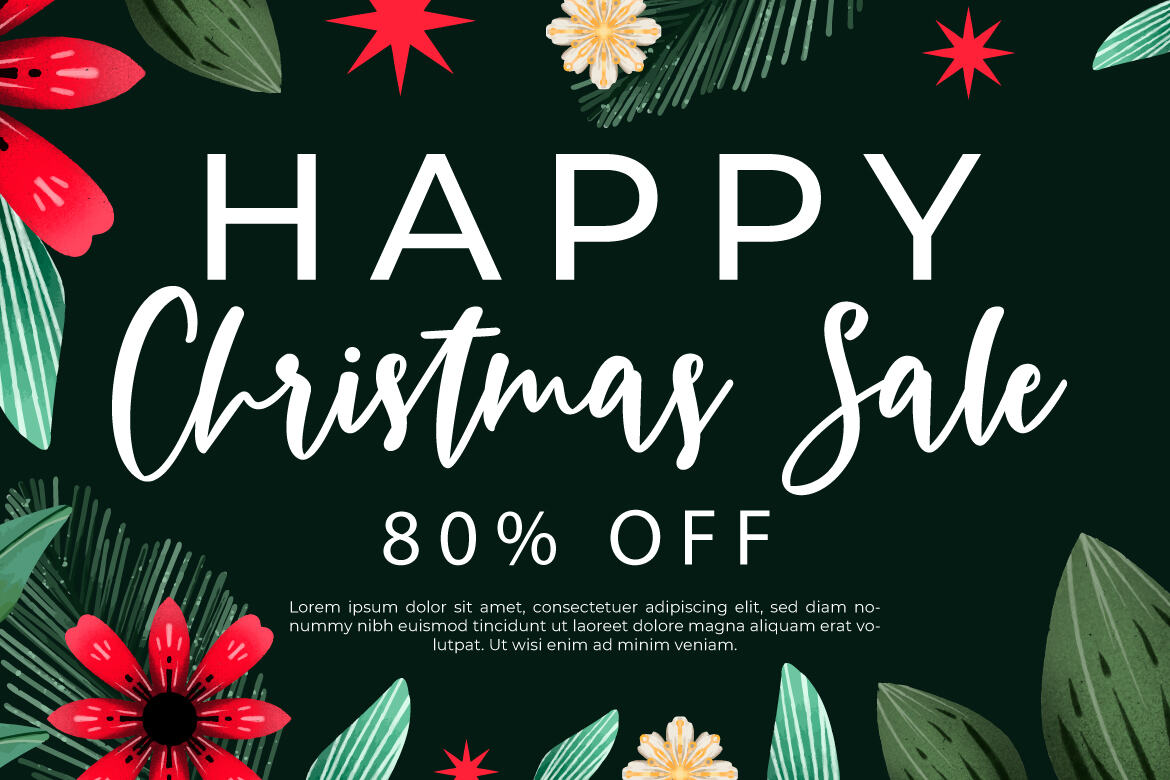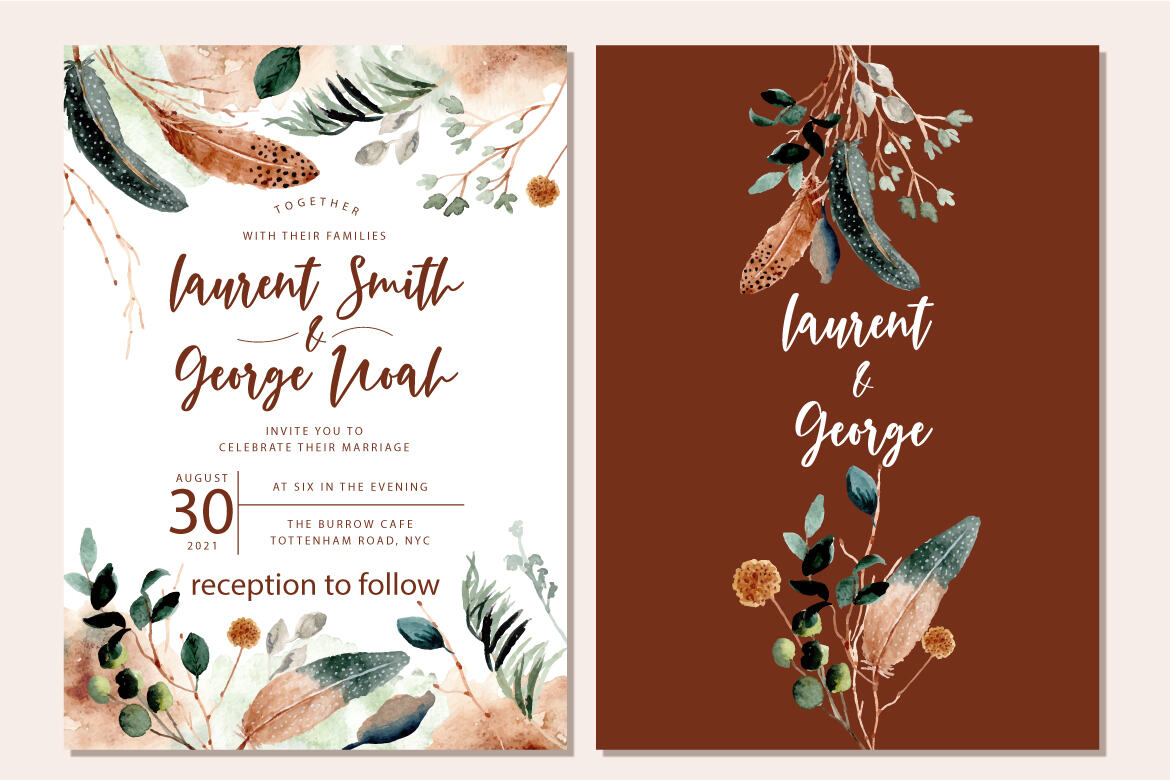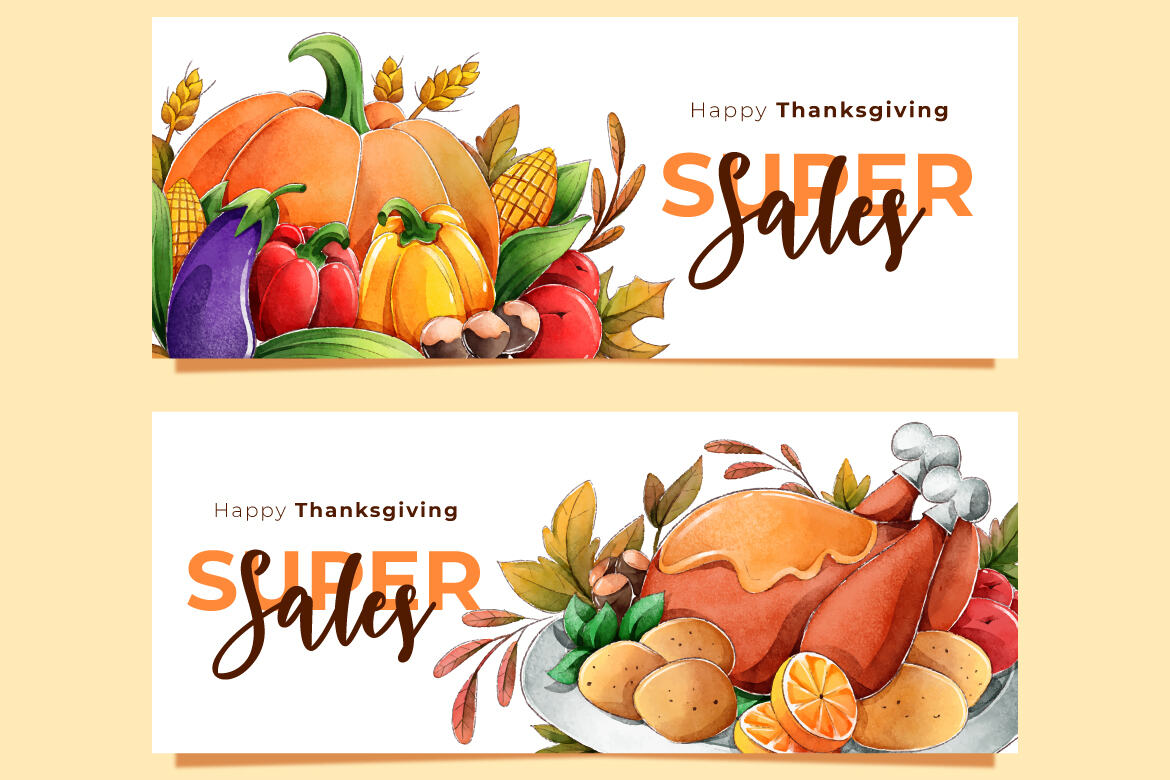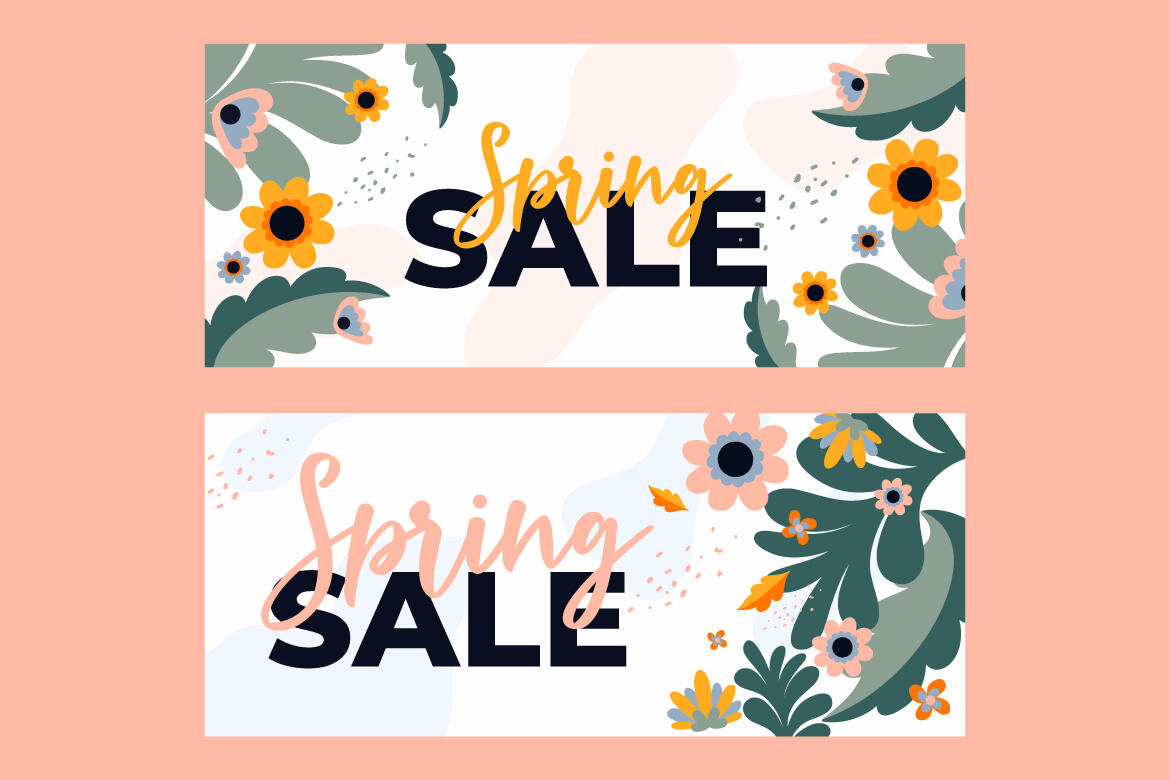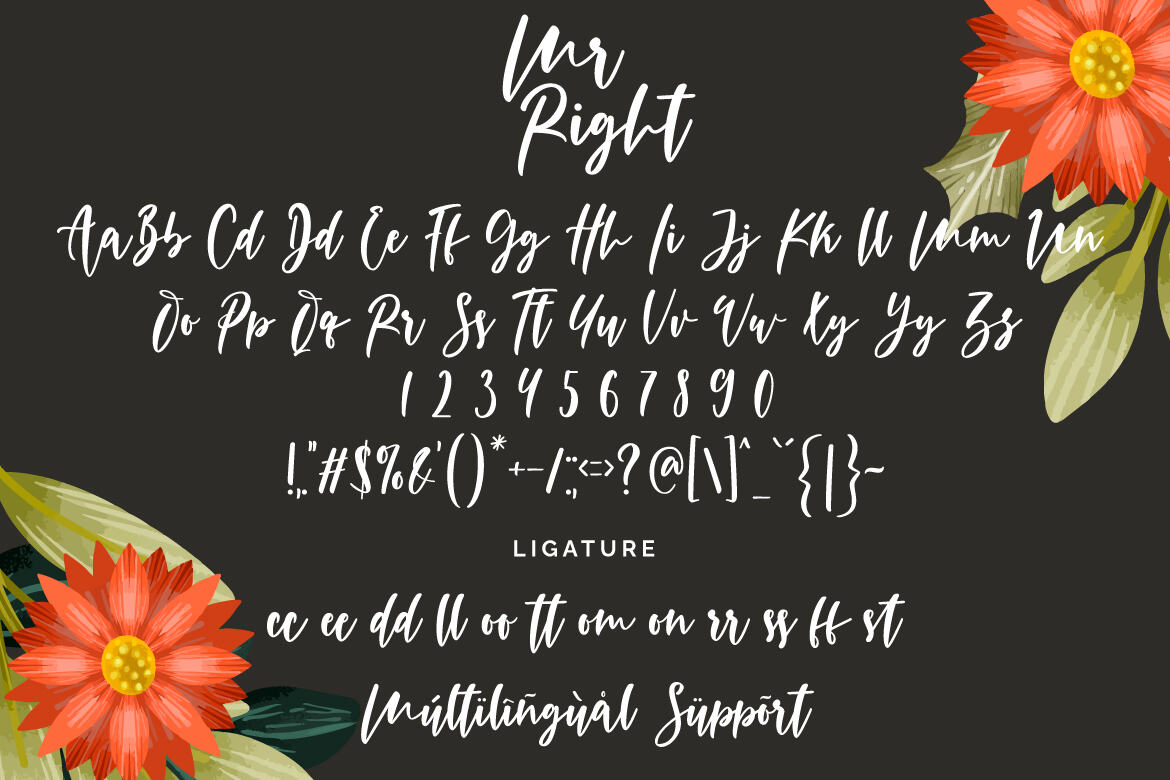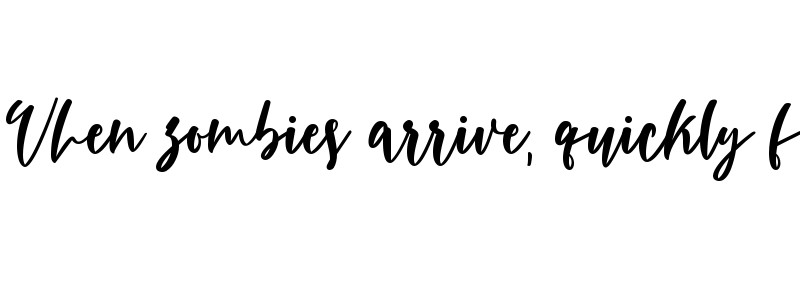
Mr Right
Mr Right is a beautiful script font. Fall in love with its authentic feel and use it to create gorgeous wedding invitations, beautiful stationary art, eye-catching social media posts, and cute greeting cards.
This font is PUA encoded which means you can access all of the cute glyphs and swashes with ease! It also features a wealth of special features including ligatures.This font is suitable for any design like branding, quotes and etc. I hope you enjoy it !! Thanks for visiting and downloading my font!
• accents (multilingual characters)
• ligature